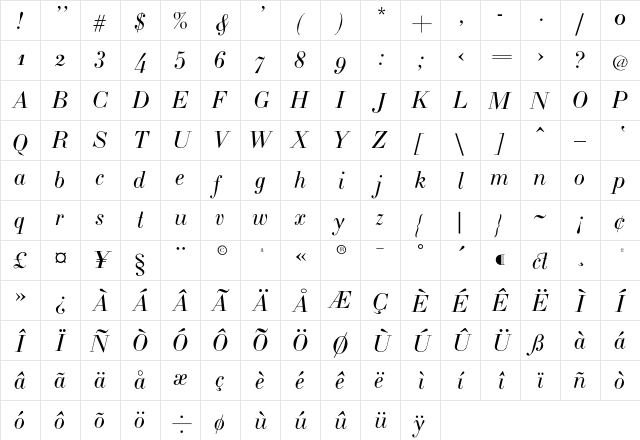
BodoniH-Italic Regular Font Preview
BodoniH-Italic Regular
Design Context for BodoniH-Italic Typeface
BodoniH-Italic is a composed and adaptable typeface that performs quietly and consistently across a wide range of design contexts. The dynamic lean of this cut emphasises speed and emphasis in any layout.
Pro Tip: Try BodoniH-Italic for annotation and caption copy alongside an upright companion — the contrast in angle creates a dynamic but ordered typographic system.